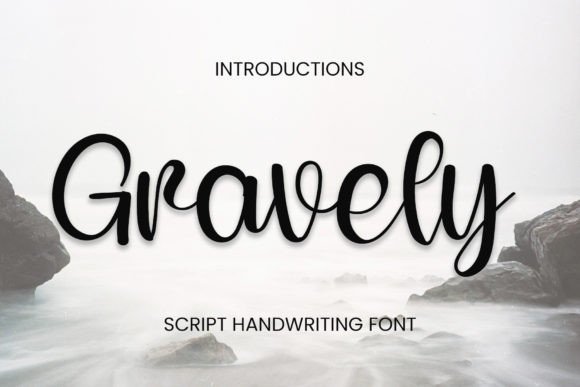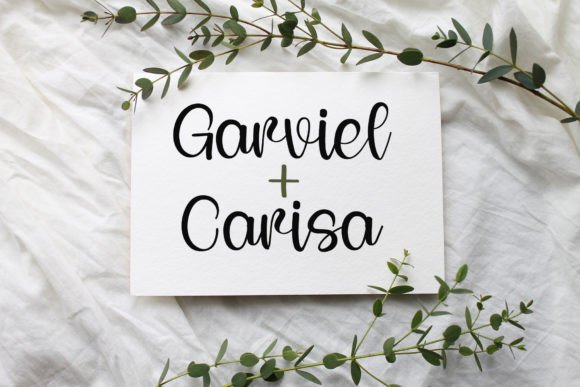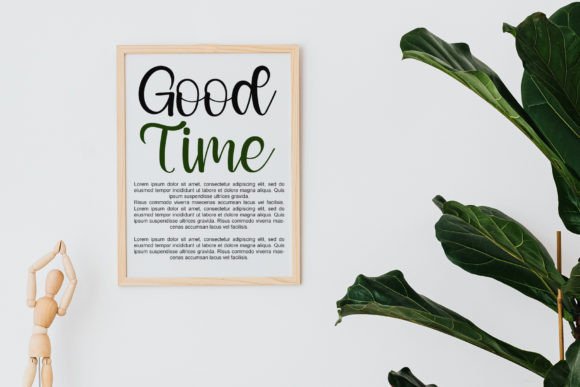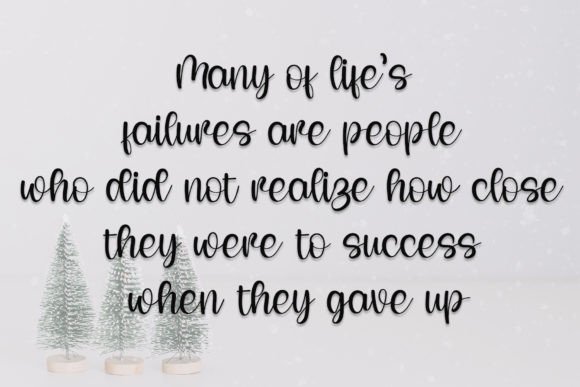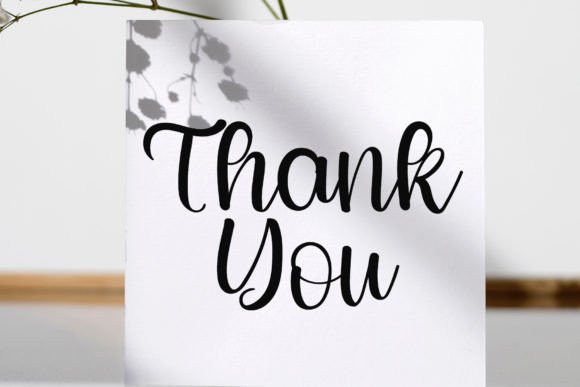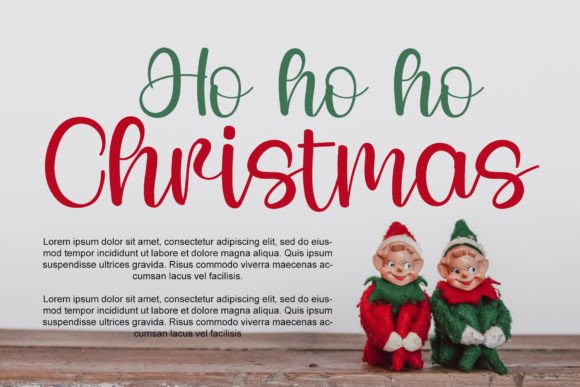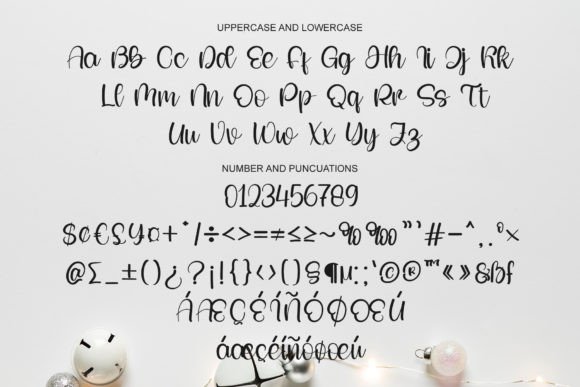
Gravely Font
About Gravely Font
Gravely Font is a stylish handwritten script that blends modern creativity with timeless calligraphic influence. With smooth strokes and balanced design, this font enhances the beauty of personal and professional projects. Because of its versatile style, Gravely Font is perfect for invitations, logos, posters, branding, and digital creative work.
A Stylish Handwritten Typeface with Calligraphic Elegance
Handwritten fonts often add warmth and authenticity, and Gravely Font enhances this quality with a graceful, contemporary atmosphere. Its polished curves and even rhythm keep designs clean while adding sophistication. Moreover, it adapts well to both formal layouts and casual projects. As a result, designers gain flexibility and elegance in one typeface.
If you enjoy working on stationery, Gravely Font is a dependable choice. For example, it can transform a wedding invitation into a keepsake filled with refinement. In addition, it works beautifully for thank-you notes, birthday greetings, and seasonal cards. Because of its calligraphic charm, every message feels personal, stylish, and heartfelt.
A Script Typeface for Logos and Branding
Brands and creatives seeking individuality will benefit from Gravely Font. It brings uniqueness and style to logos, product packaging, and labels. Furthermore, on social media, it improves posts, banners, and promotional designs with sophistication. When paired with minimalist sans serif fonts, Gravely Font strikes a balance between elegance and professionalism.
Another advantage of Gravely Font is its adaptability across mediums. In print, it enhances magazines, brochures, posters, and merchandise. Digitally, it elevates websites, blogs, and presentations with a polished handwritten look. Since it scales gracefully, this font remains stylish and legible whether used for large titles or small details.